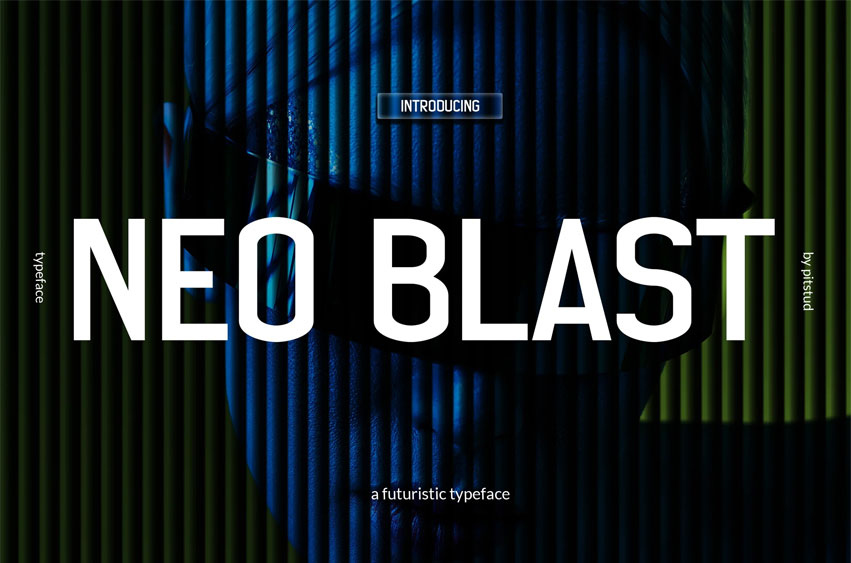
Neo Blast Font Professional Modern Font is a sleek and futuristic typeface crafted to bring modern precision, clarity, and impact to your creative projects. With sharp geometric lines, bold proportions, and a clean digital edge, Neo Blast delivers a professional yet innovative aesthetic perfect for tech-driven, futuristic, and contemporary designs.
Whether you’re designing a startup pitch deck, technology branding, website interface, or digital product presentation, Neo Blast offers the perfect blend of professionalism and modern style. Its versatile structure and refined letterforms make it ideal for logos, advertising, editorial design, packaging, and bold headlines.
• Futuristic & Modern Design: Strong geometric structure with sleek, clean edges.
• Complete Character Set: Uppercase, lowercase, numbers, punctuation, symbols.
• OpenType Features: Alternates, ligatures, stylistic sets.
• Multilingual Support: Supports multiple languages, including English, Spanish, French, German, and Portuguese.
Neo Blast combines futuristic innovation with professional clarity, making it a standout choice for both creative and corporate applications. Whether for branding, marketing, or digital media, this typeface adapts effortlessly to enhance your visual identity.
• Brand Identity: Create a bold, modern signature look.
• Advertising & Marketing: Stand out with futuristic appeal.
• Editorial Design: Enhance headlines and magazine layouts.
• Technology & Startups: Communicate innovation and professionalism.
• Product Packaging: Give your product a modern and high-tech edge.